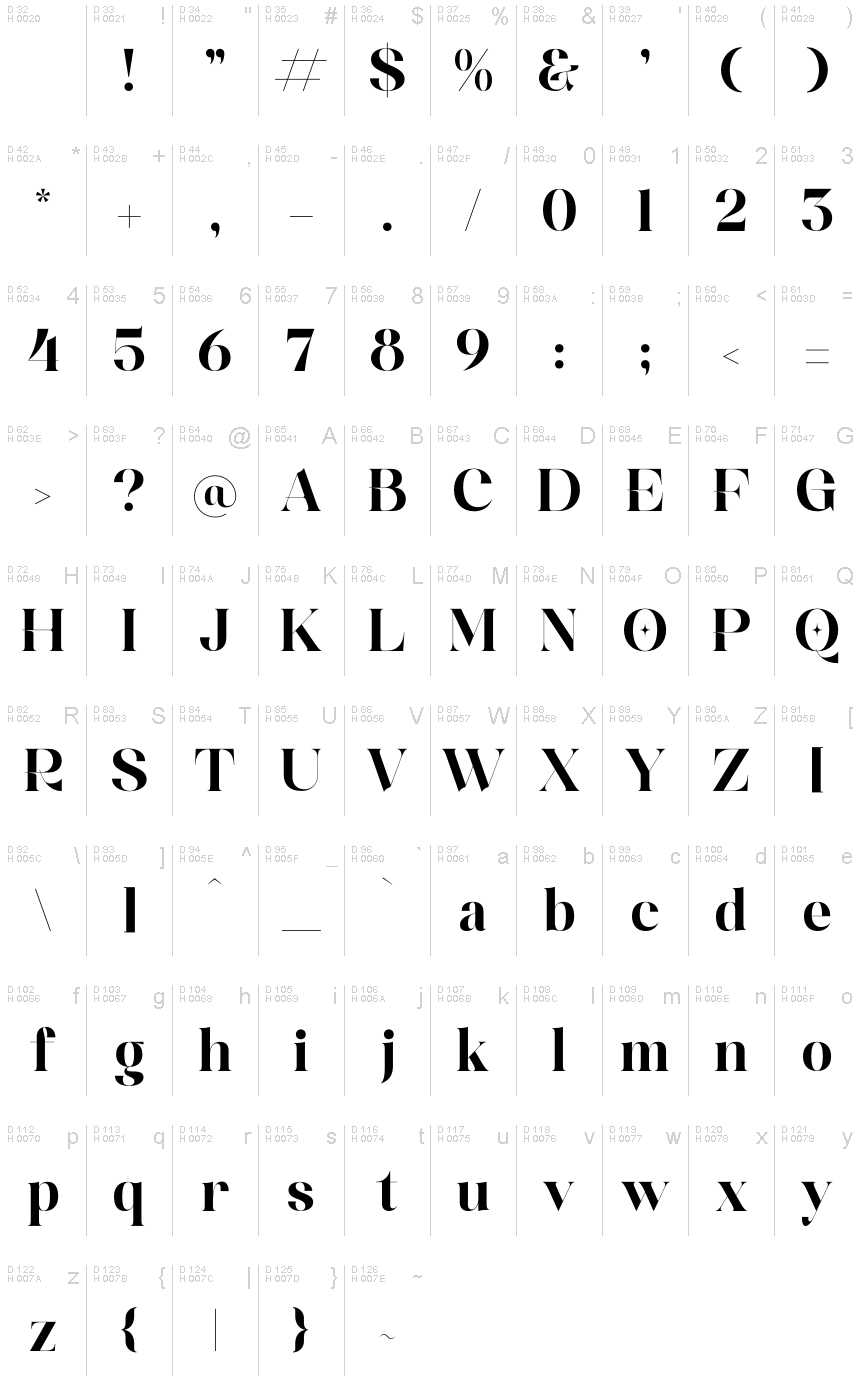
Ranfgih
Ranfgih, a captivating serif font crafted by Storytype Studio, exudes a timeless elegance with its distinctive curves and bold structures. This typeface's refined aesthetic evokes a sense of sophistication and grandeur, making it a compelling choice for projects seeking a touch of classic charm. The font's striking visual presence commands attention, seamlessly blending traditional typographic elements with a modern flair.
Ranfgih's versatility extends across a wide range of design applications, from high-end editorial layouts to luxurious branding campaigns. Its robust letterforms and balanced proportions lend themselves effortlessly to headlines, titles, and impactful statements, while its readability also makes it a suitable choice for body text. Whether showcasing a premium product or crafting an elegant invitation, the Ranfgih font's timeless appeal can elevate the visual impact of any project.